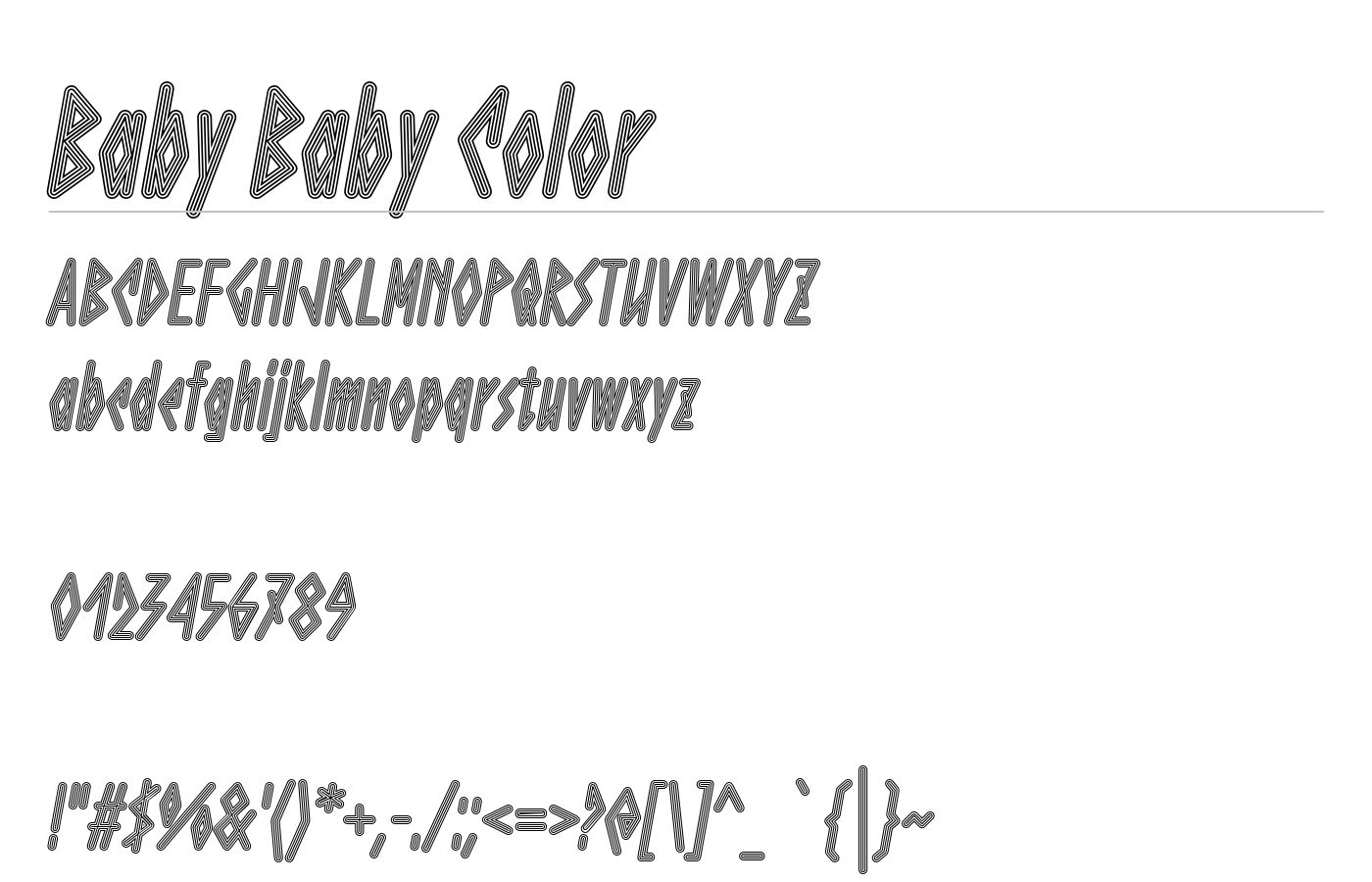
Baby Baby Color is a playful, hand-drawn sans serif font with a lively, layered outline style that creates a sense of depth and movement. Its tall, narrow letterforms with sharp angles and unique geometric shapes give it a quirky and modern personality, making it ideal for creative designs that want to stand out with a fun and dynamic vibe. This font works wonderfully for eye-catching headlines, posters, and branding that aim to convey energy and youthful charm.
Baby Baby Color Font
About Baby Baby Color Font
| Font family | Baby Baby Color Font |
| Designer | Ryoichi Tsunekawa |